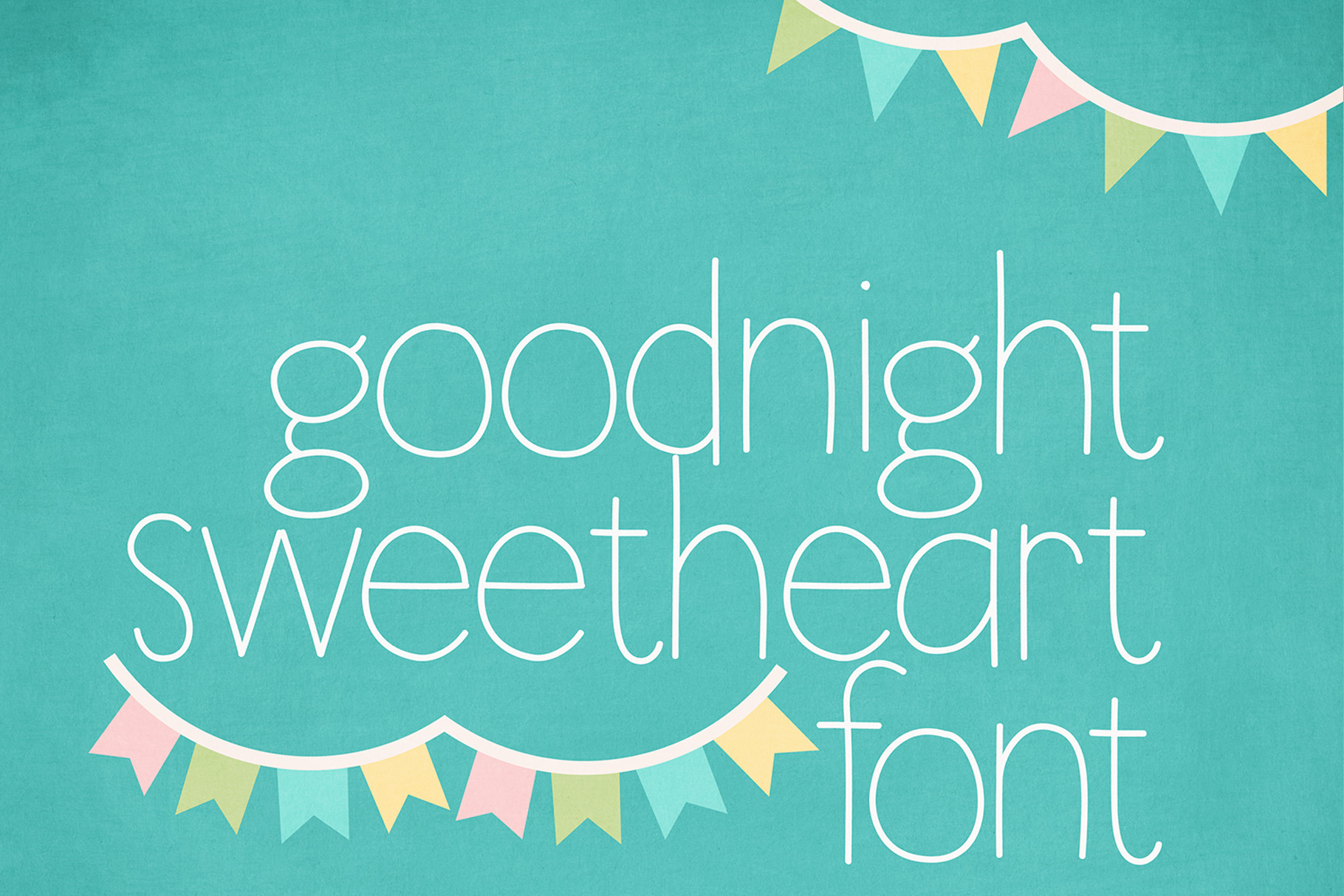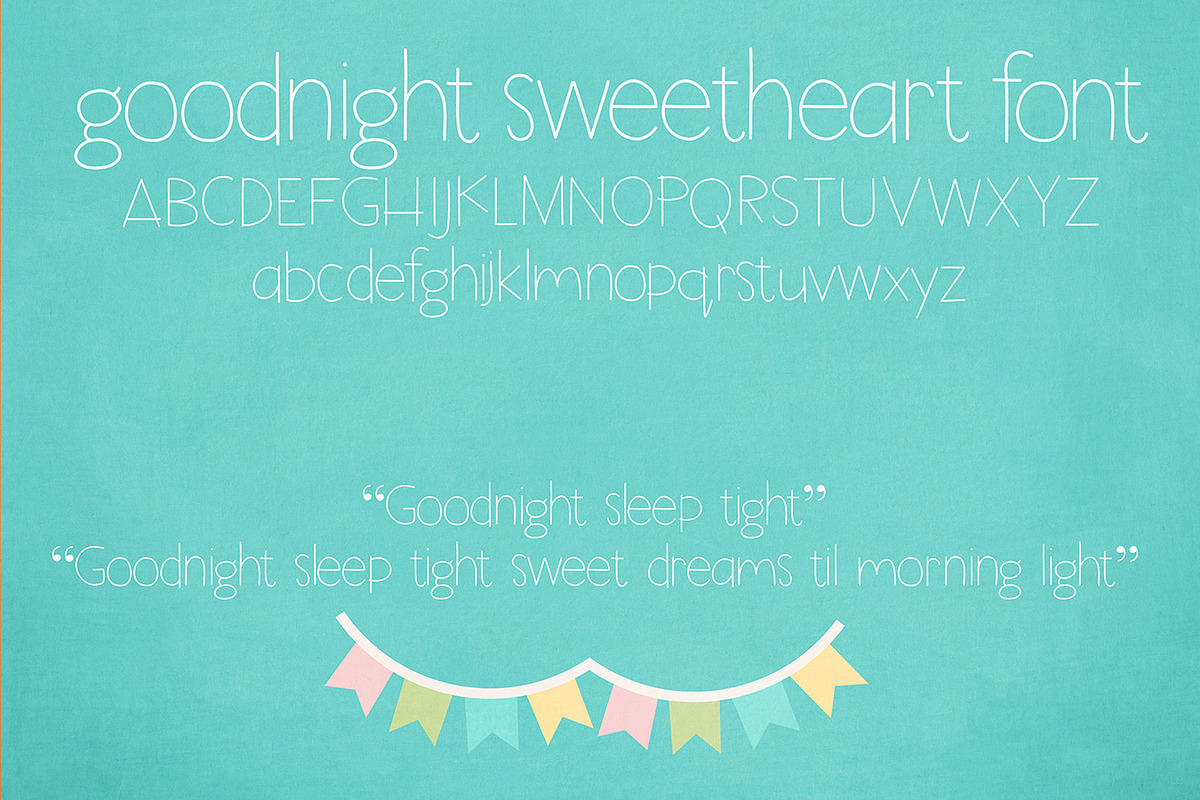
Goodnight Sweetheart Font
Introducing a cute handwritten script font!
Perfect for greeting cards, branding, stationery, social media, scrapbooking, prints and more!